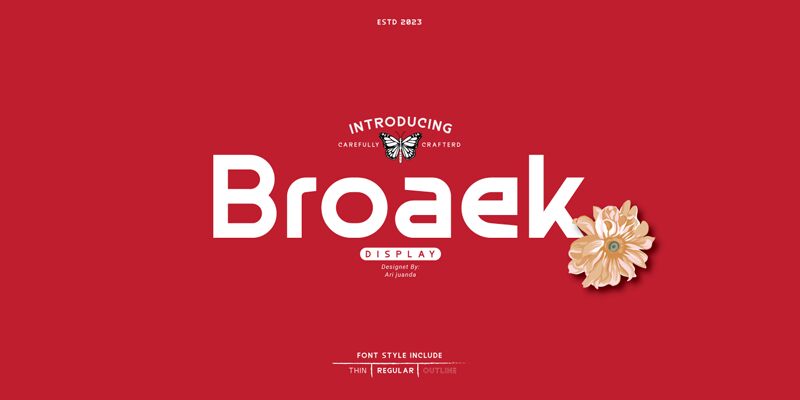
Broaek Outline by Linecreative is a strikingly minimalistic sans serif font that captivates with its clean and contemporary design. The outlined nature of Broaek Outline gives an airy, open feel, making it perfect for modern and sophisticated design projects. The boldness in its structure exudes confidence, while the clarity of each character ensures readability in various contexts.
Ideal for branding, logos, and headlines, Broaek Outline’s sleek appearance effortlessly draws attention without overwhelming the viewer. Its versatility makes it suitable for use in both print and digital media, fitting seamlessly into corporate identities or creative ventures. Let Broaek Outline elevate your designs with its refined elegance and unmistakable presence.
Broaek Outline